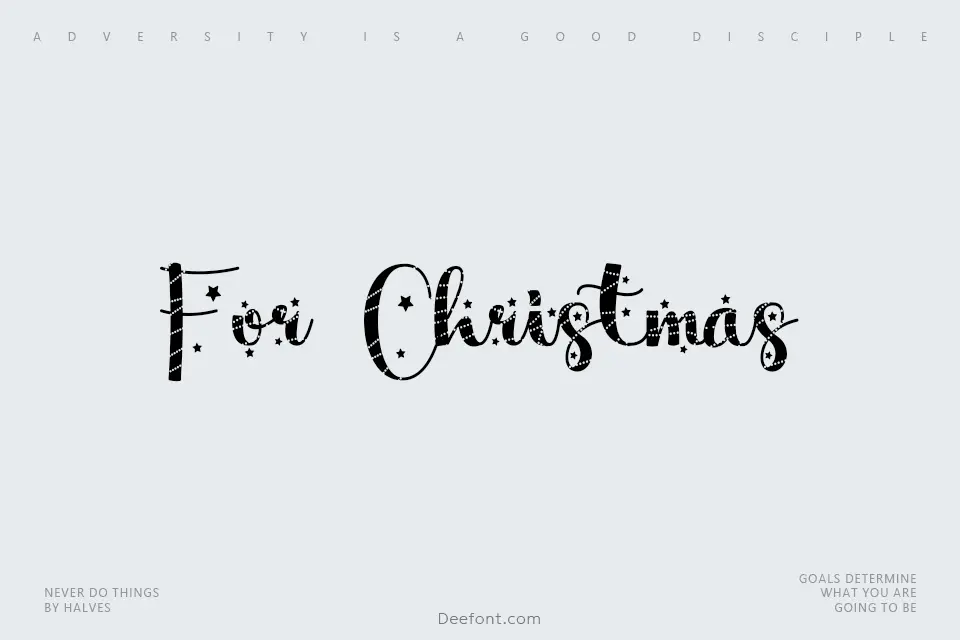
For Christmas Font
For Christmas is a festive and cheerful display font created by Jadatype, perfect for holiday-themed designs and seasonal projects. With its playful character and decorative appeal, this font brings warmth and joy to Christmas cards, invitations, banners, and festive social media content. The rounded letterforms and festive aesthetic make it an excellent choice for creating eye-catching holiday designs that capture the spirit of Christmas celebrations.
Designed by:Jadatype